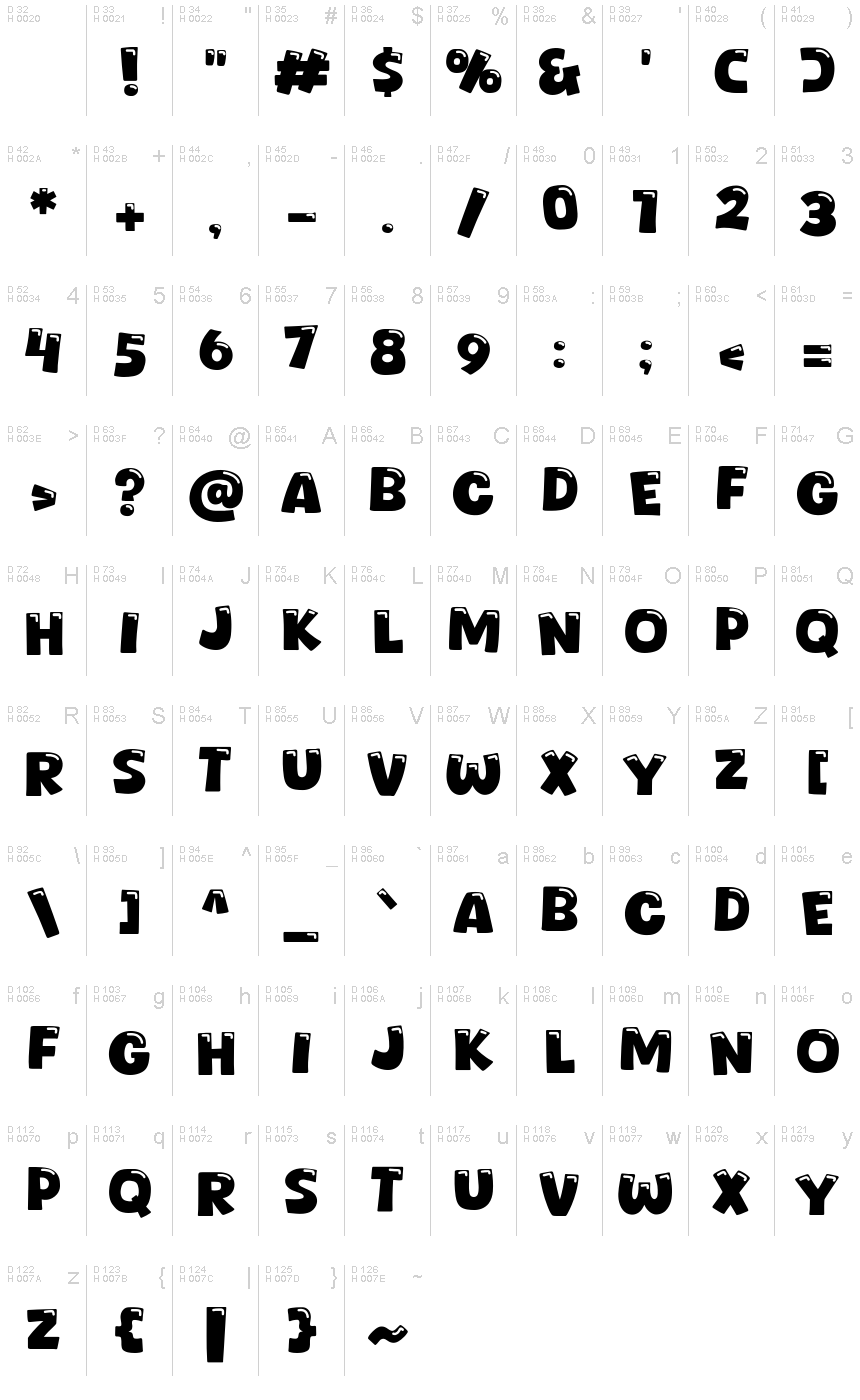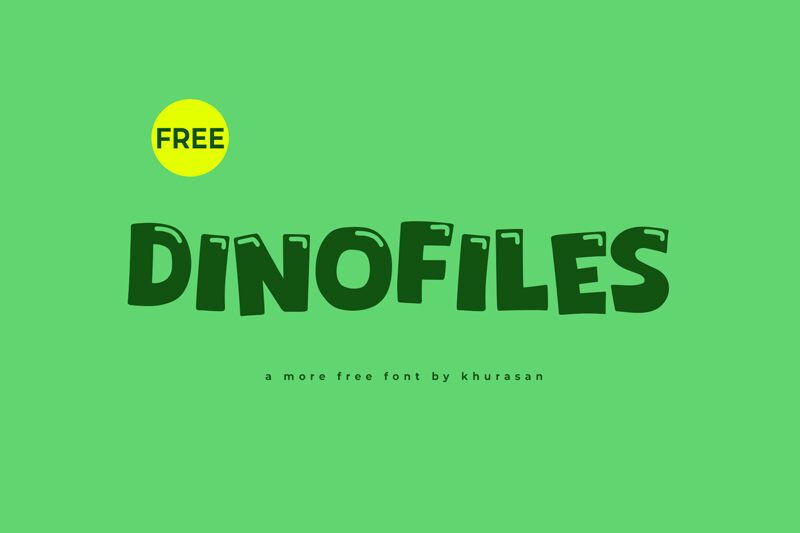
Dinofiles
Dinofiles by Khurasan is a display font that captivates with its bold and playful cartoon style. Each character is teeming with whimsical charm, boasting a weighty presence that makes it perfect for drawing attention. The exaggerated, chunky outlines imbue the letters with a sense of liveliness and fun, making this font an ideal choice for kid-friendly designs, playful branding projects, or eye-catching headlines.
Its distinctive appeal lies in its ability to bring a touch of joy and energy to any text it graces. Dinofiles shines in contexts where vibrancy and approachability are key - think children's books, animated graphics, or party invitations. Embrace the spirited personality of Dinofiles to inject your projects with an instantly engaging and vivacious look.